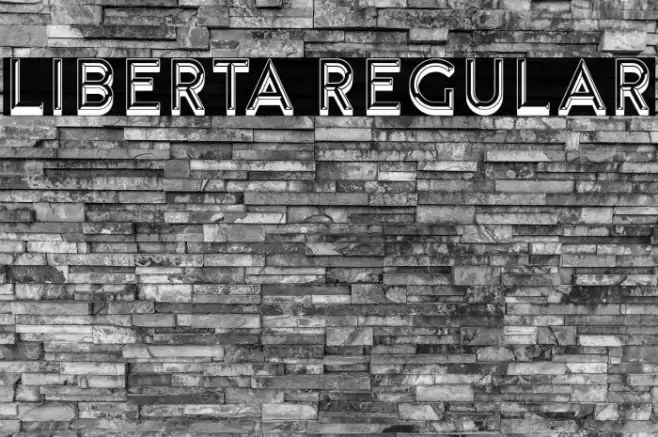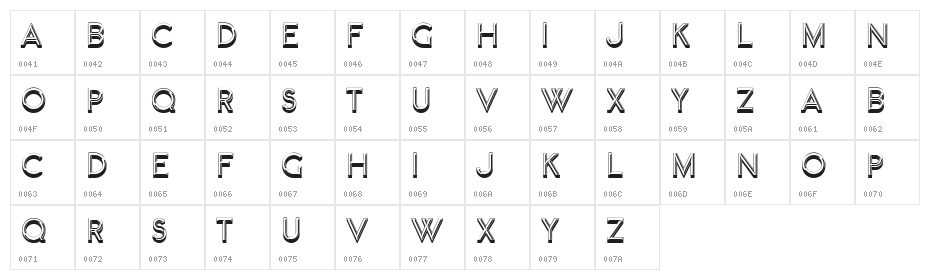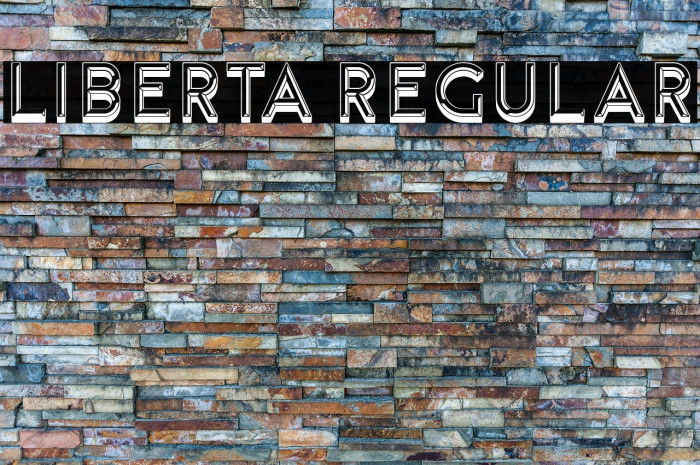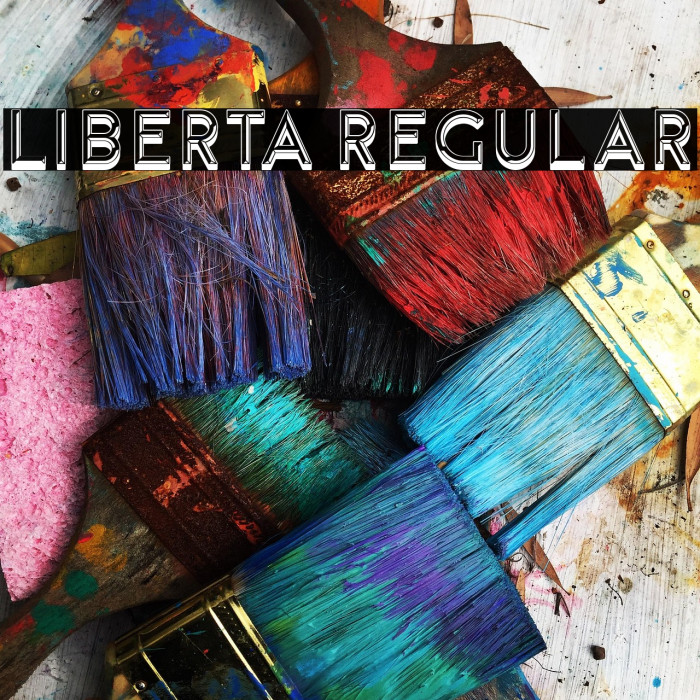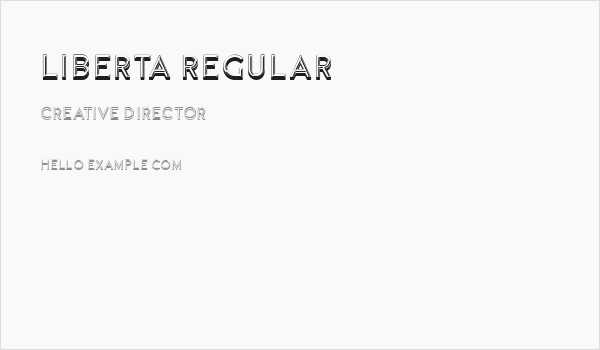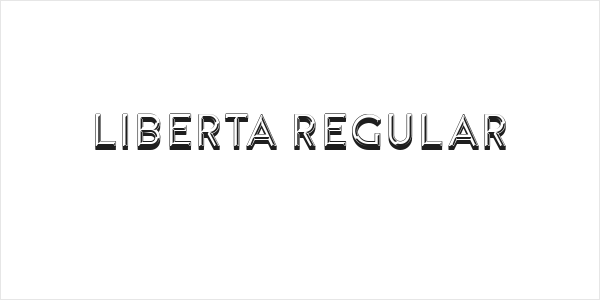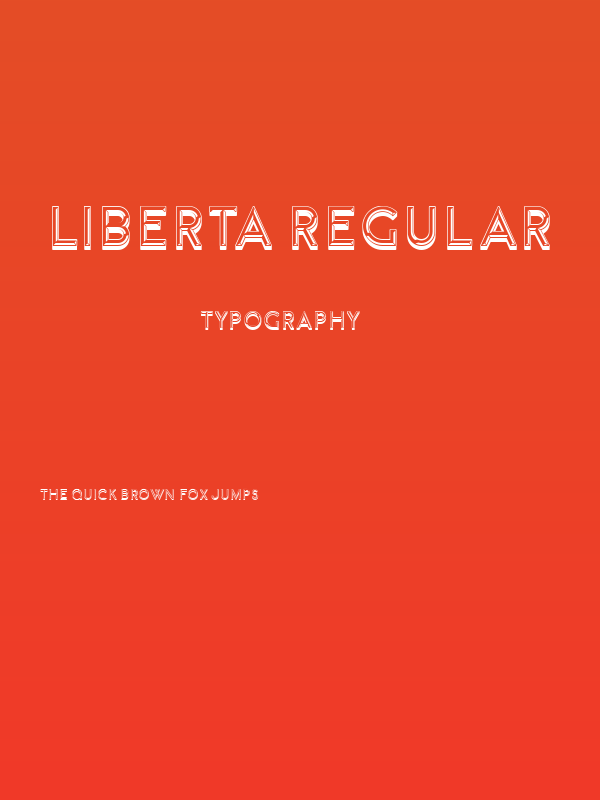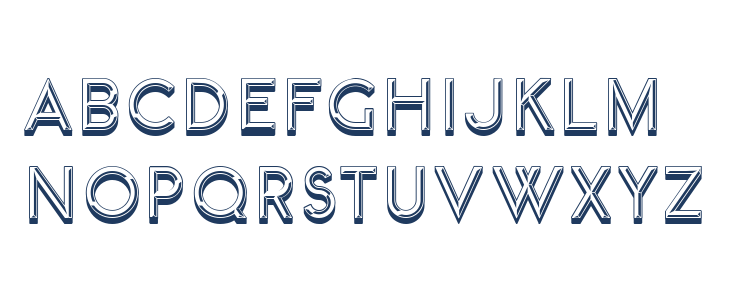
Liberta Regular Font
Liberta Regular Description
This font features a bold and striking design with a distinct three-dimensional effect. Each character is outlined with a shadow, creating a sense of depth and dimension. The uppercase letters are uniform in height and width, giving a balanced and cohesive appearance. The font's geometric structure is enhanced by clean, sharp lines and angles, making it highly legible. Its unique style is both modern and retro, suitable for a variety of creative applications. The characters are evenly spaced, ensuring readability and visual appeal.
A bold, three-dimensional font with a modern and retro feel from Uncategorized fonts.
- Font: Liberta Regular
- Proposed Projects: Ideal for posters, logos, headlines, and branding materials that require a bold statement.
- Overall Style: Modern, Retro